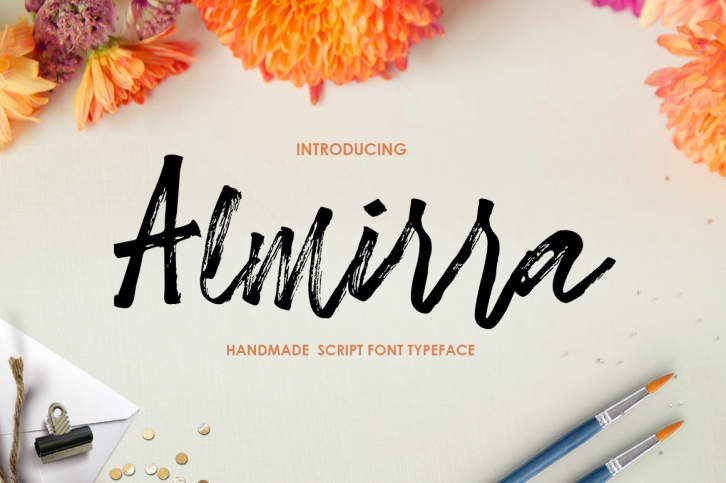
Almirra Script is a handwritten script font, based on the expression of the signature style that flows freely, friendly and organic. hand painted with love. Almirra Script are available ligatures and alternates characters in Open Type Features. Also with additional Almirra, a font display harmony to be combined with Almirra Script. Perfect for brand projects, logos, product packaging, posters, invitations, greeting cards, news, blogs, everything including personal charm.